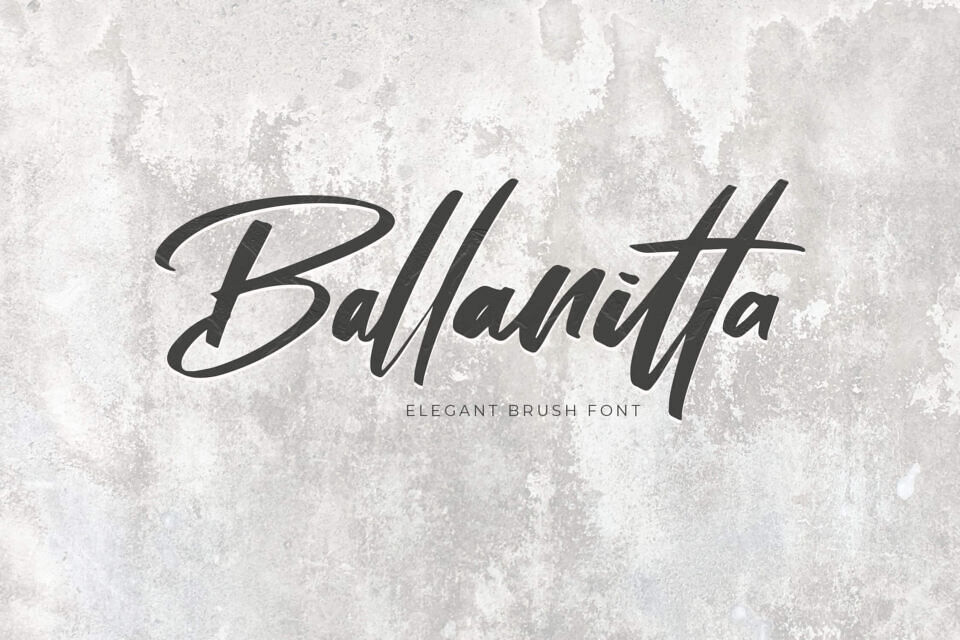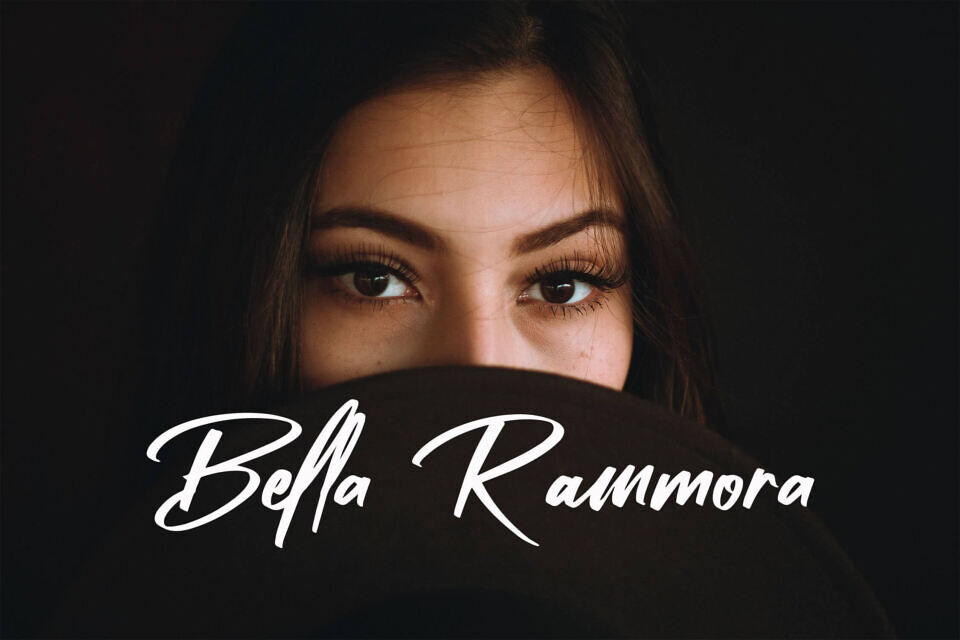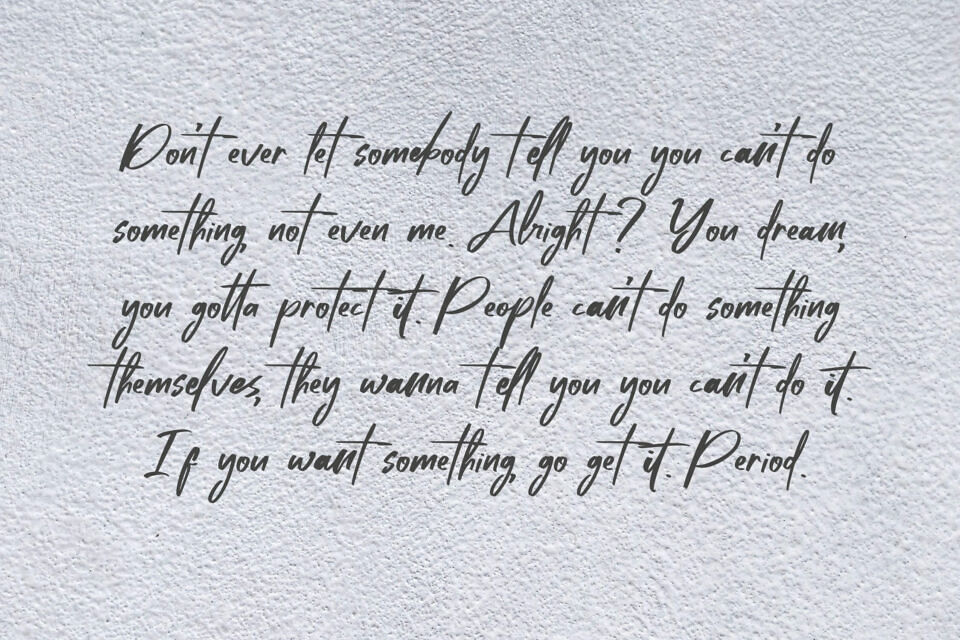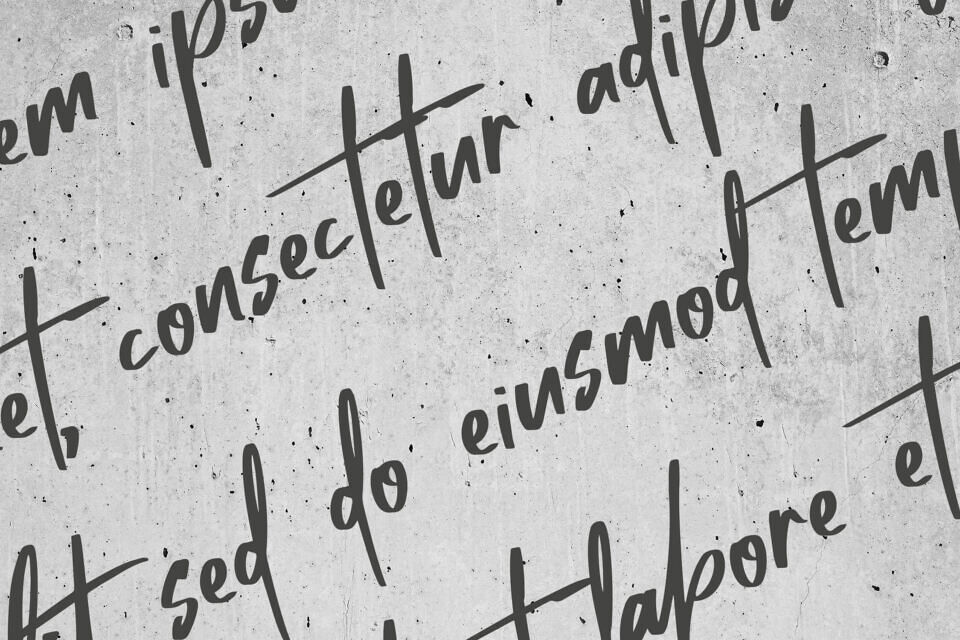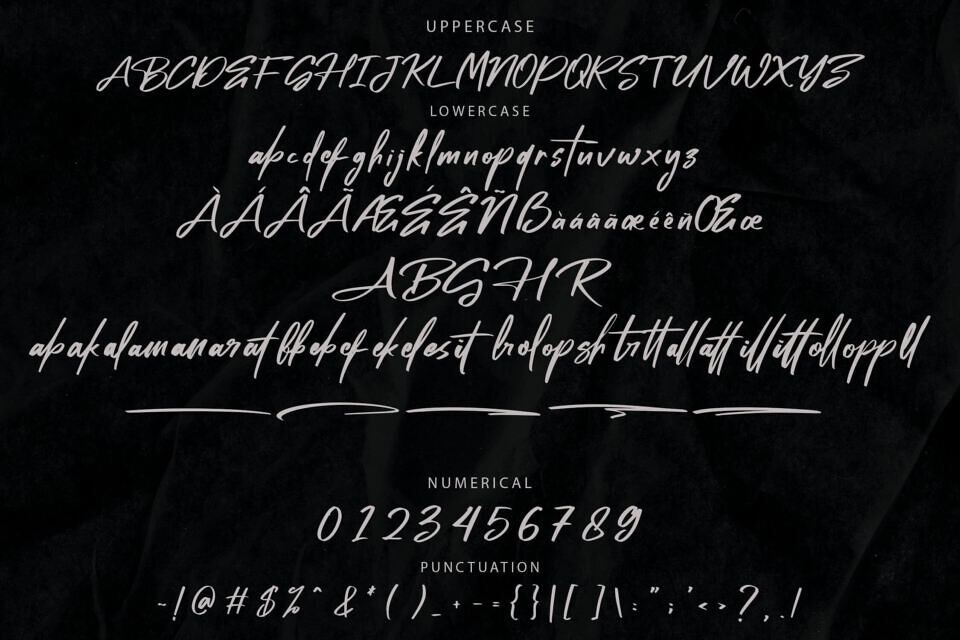
Ballanitta Font
Introducing Ballanitta, a stunning script font featuring an elegant brush style that exudes sophistication and charm. Crafted with unique character shapes, this font is perfect for enhancing the visual appeal of your designs.
Whether you’re working on invitations, branding, logos, or any creative project, Ballanitta adds a touch of grace and elegance to every letter.